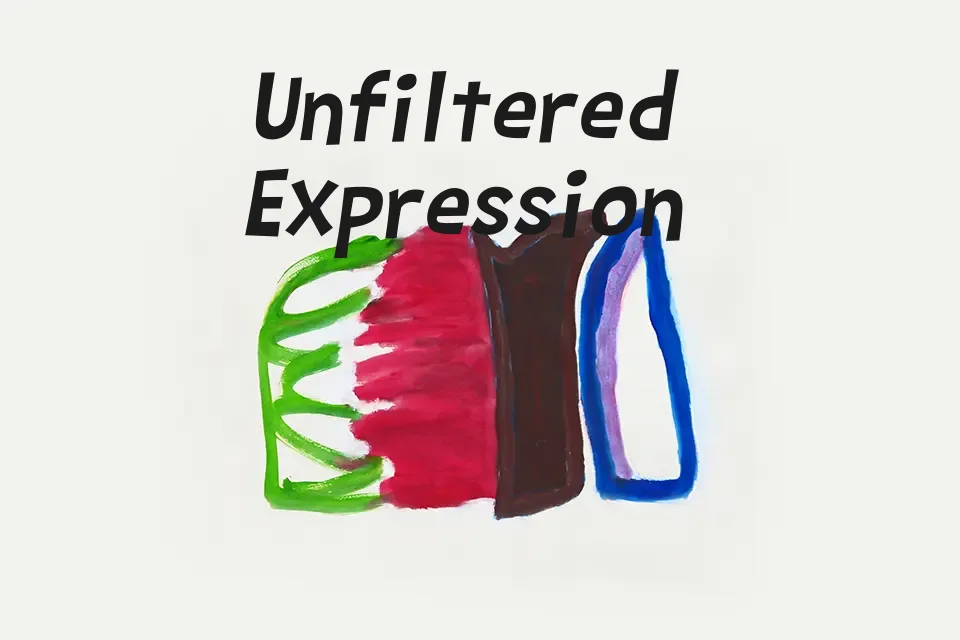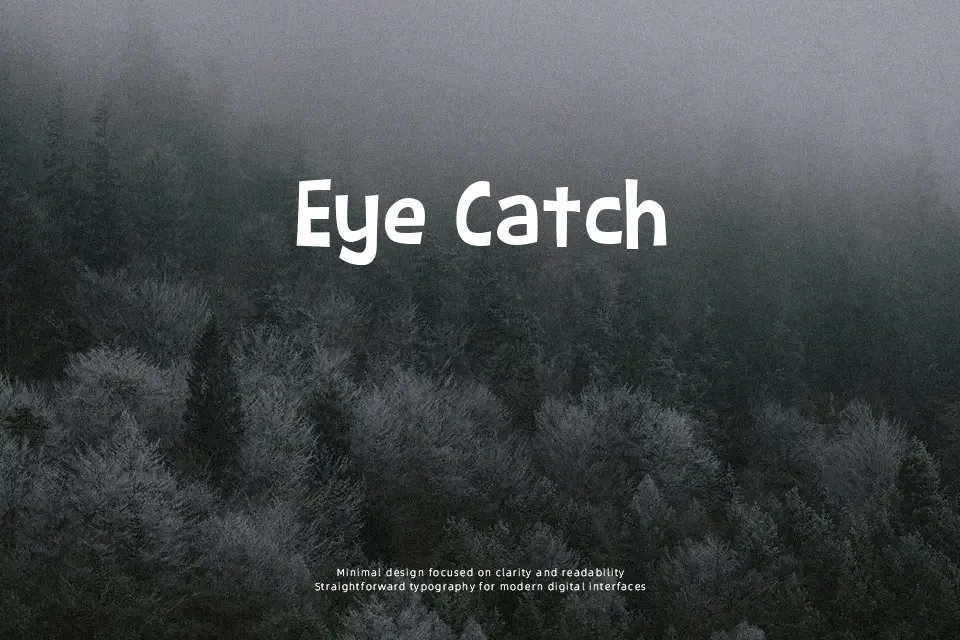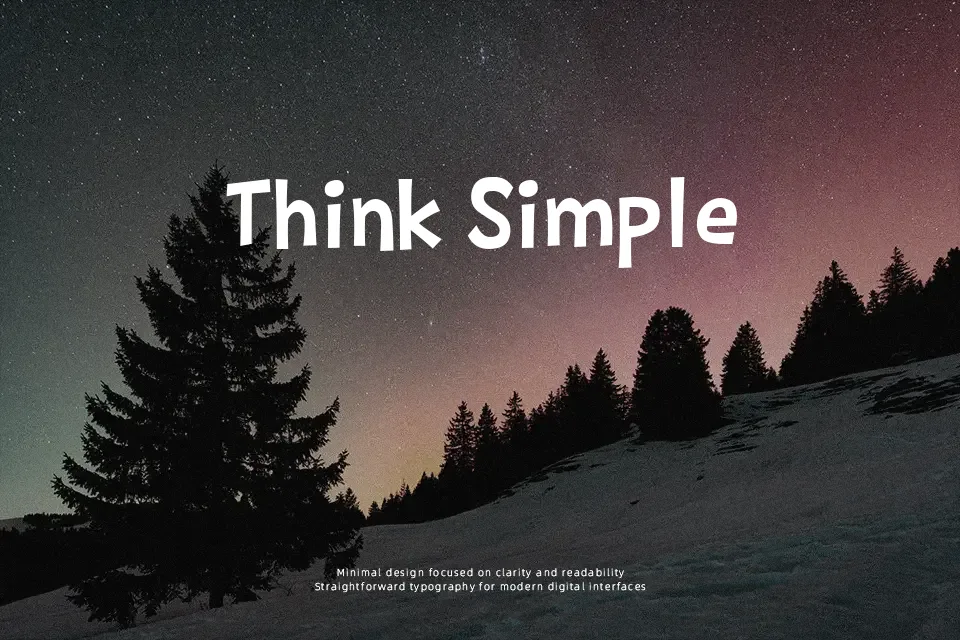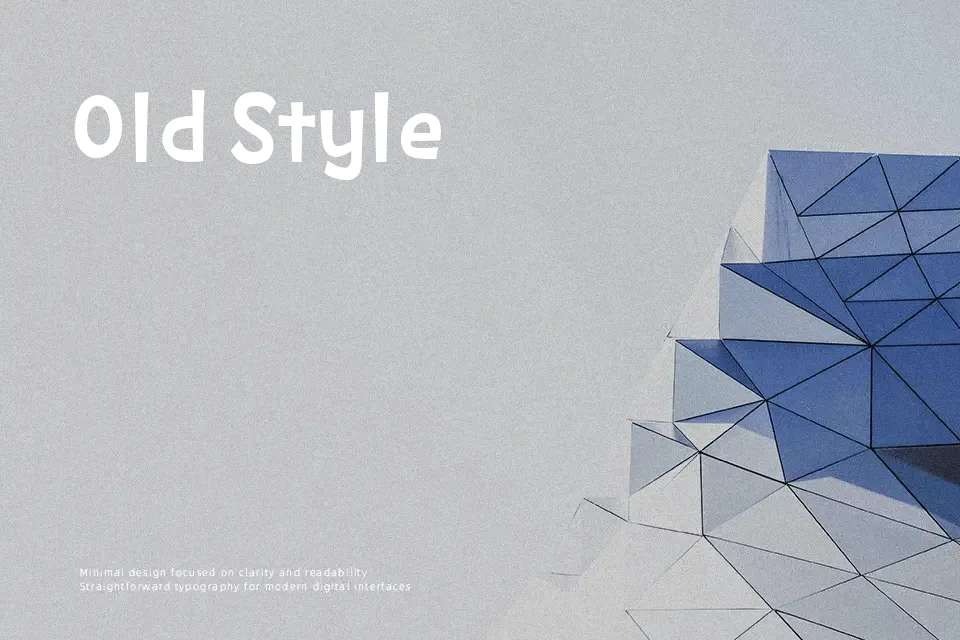
Barthowheel Font
Designed by Jayvee Enaguas
Barthowheel carries the loose, rounded energy you’d expect from mid-century cartoon lettering — thick strokes, soft curves, and a slightly uneven baseline rhythm that feels intentional rather than sloppy. It reads casually, not crisply, which gives it warmth at display sizes. The italic variant adds a swashy lean that pushes the personality further, useful for emphasis or subheadings in playful layouts. Where it earns its place: children’s media headers, retro-themed event branding, comic-style social graphics, or gaming interfaces where a bit of nostalgia is an asset. Where it falls short: anything requiring high legibility at small sizes or in dense text blocks will expose its limitations — the letterforms lose clarity quickly below 16pt. Licensed 100% free including commercial use, which makes it a genuinely practical choice for indie projects on a budget.
Best For:- Children’s book cover titles and chapter headers
– Retro-themed event posters and flyers
– Indie game UI labels and loading screen text
– Comic-style social media graphics
Not Ideal For:- Body text or long-form reading at any size
– Corporate or professional branding materials
– Fine print, captions, or footnotes
– High-resolution print where stroke consistency matters
Perfect for advertising, gaming, and headline, with a creative and cartoon style.